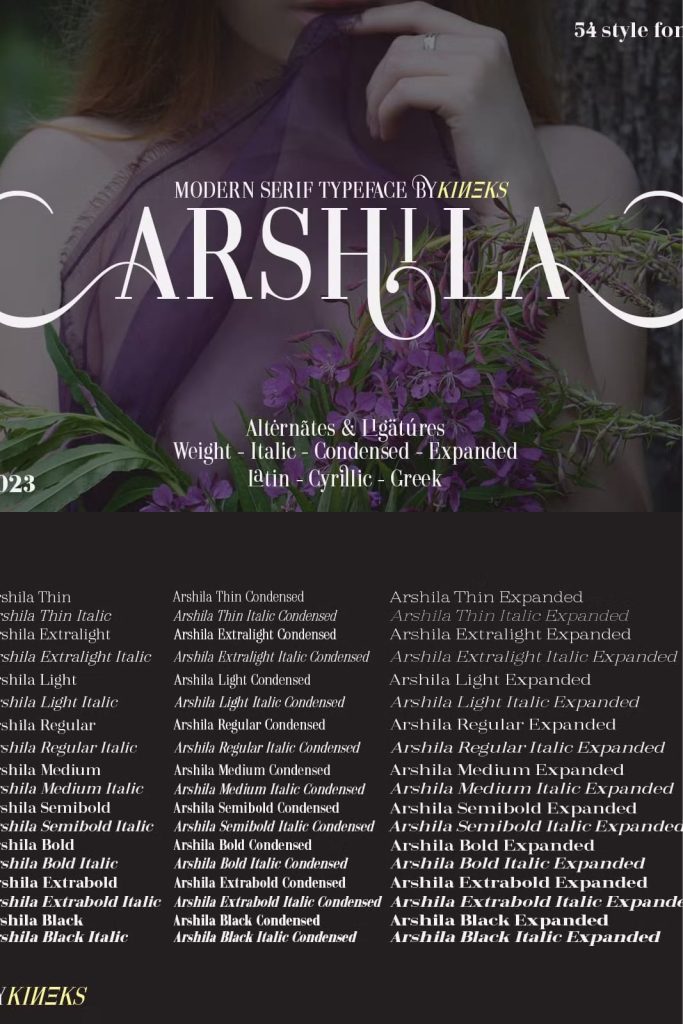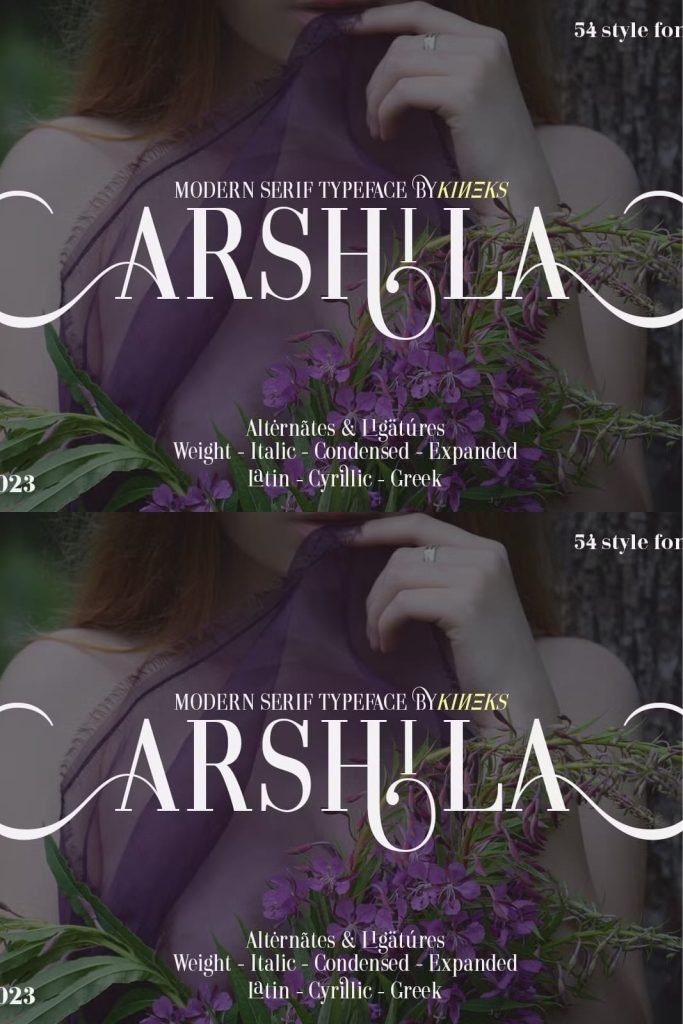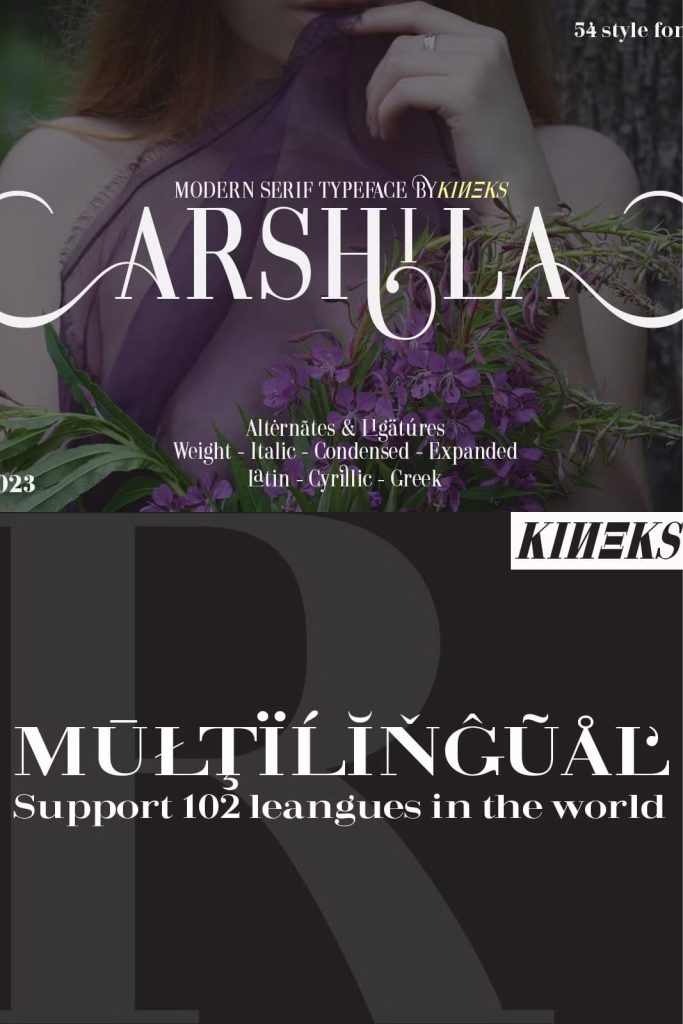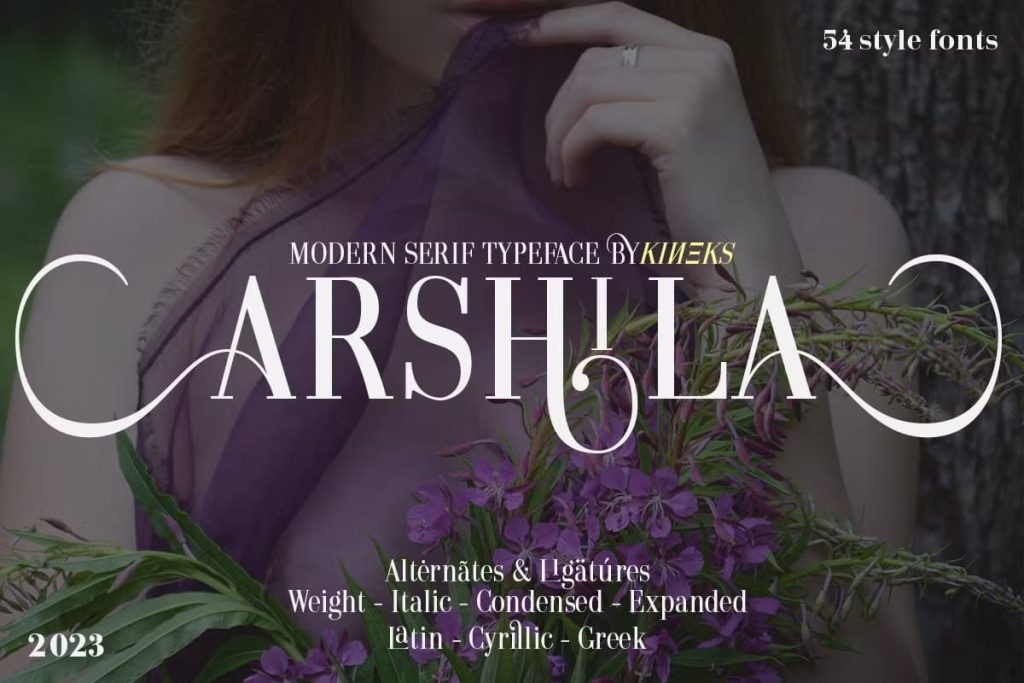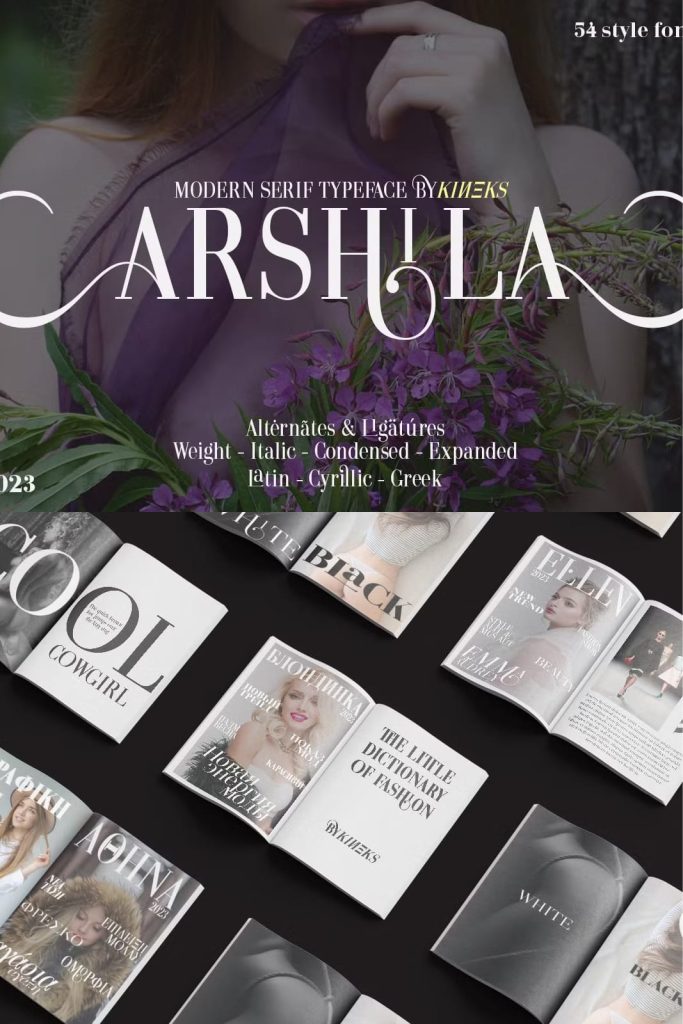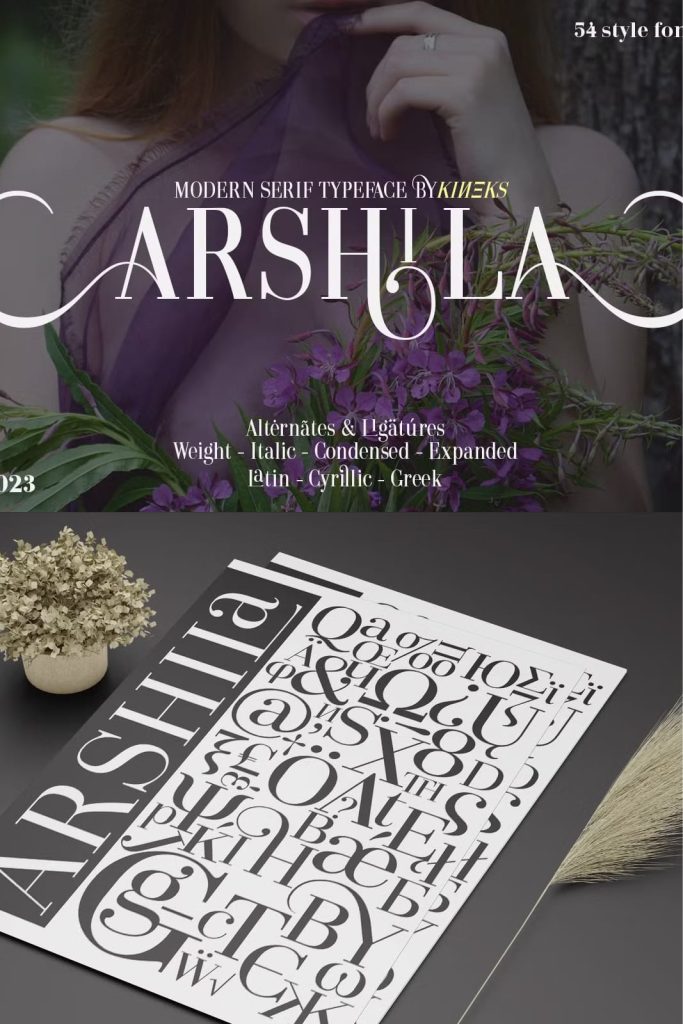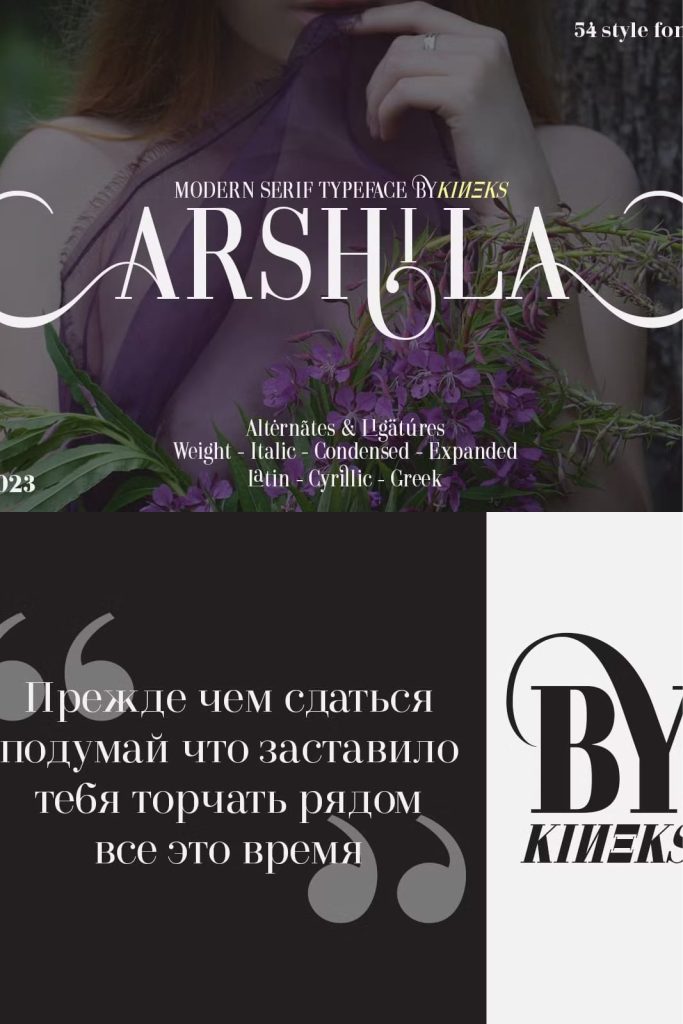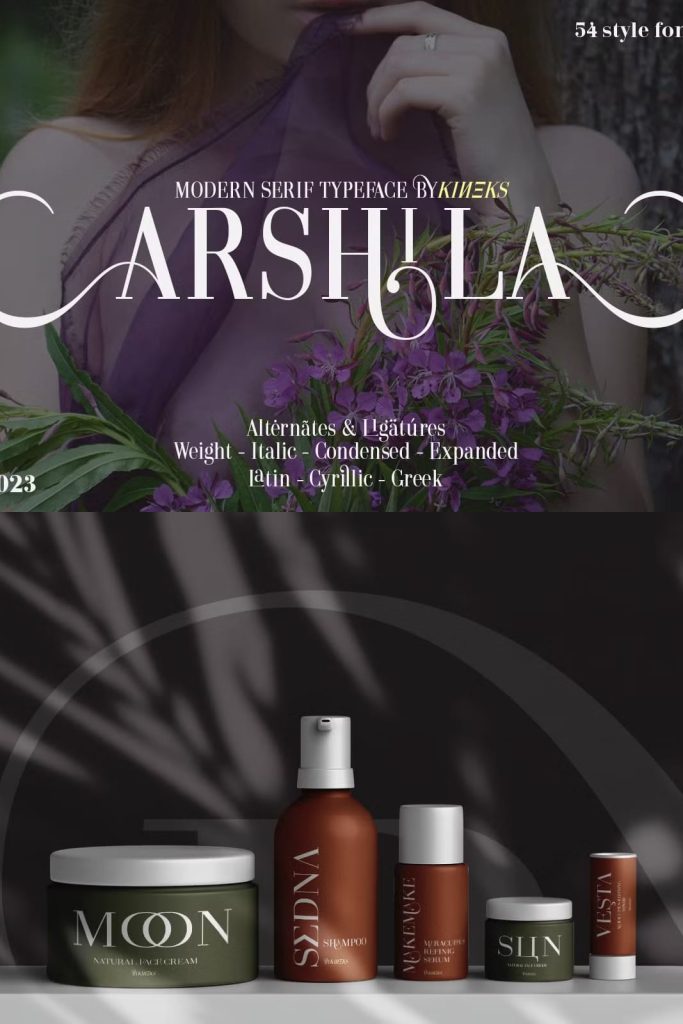
Introducing Arshila Typeface the Modern Serif Bykineks, designed by Dede Kurniawan, the newest typeface family with 54 font styles! With over 700 glyph options and a multilingual, Cyrillic, Greek writing system, this typeface offers a complete typography. easily adaptable to designs in the fashion industry such as magazines, logotypes, wedding invitations, label tags, posters, and many more.
gives you a modern, professional and unique style. with various features such as ligatures, alternative characters, numerator, and denominator. You can create a completely unique design that is sure to stand out from the rest. Get creative with arshila typeface, and bring your designs to life!